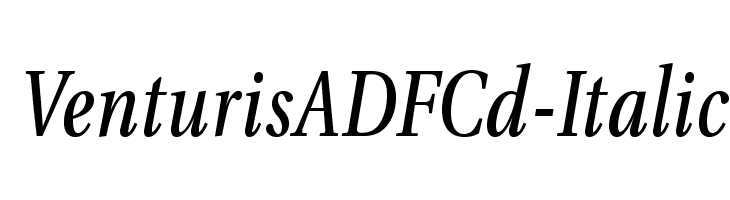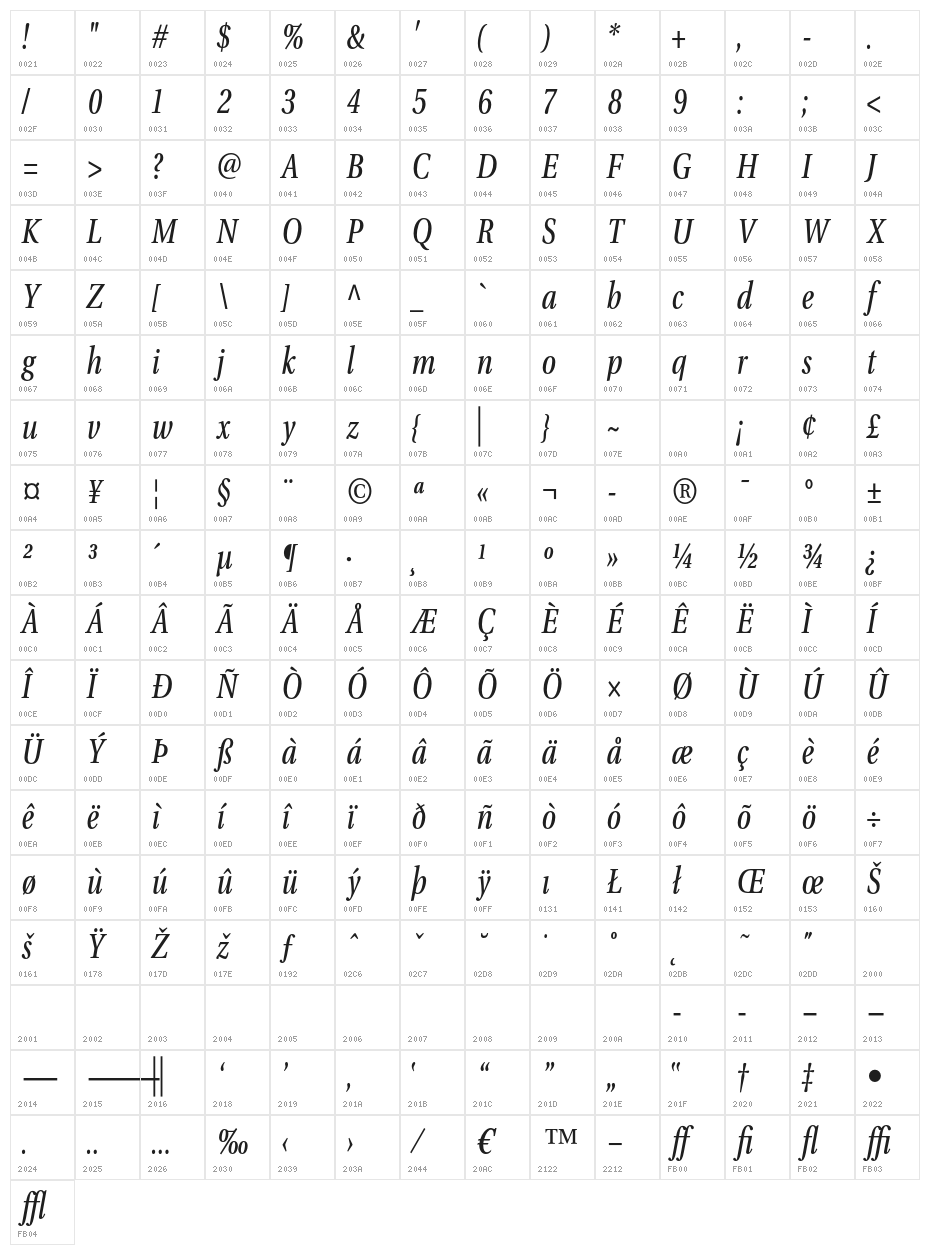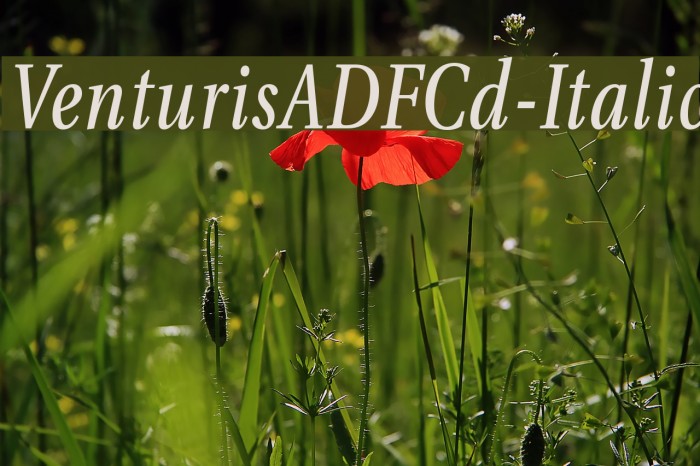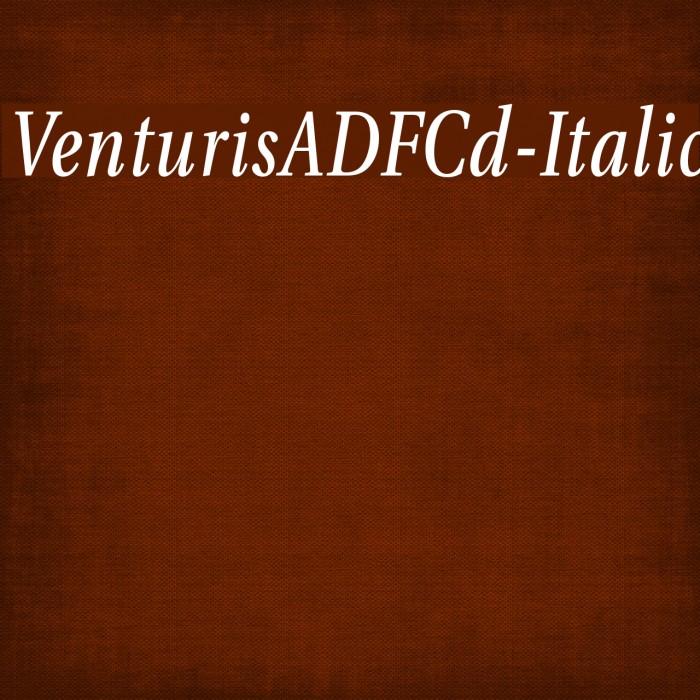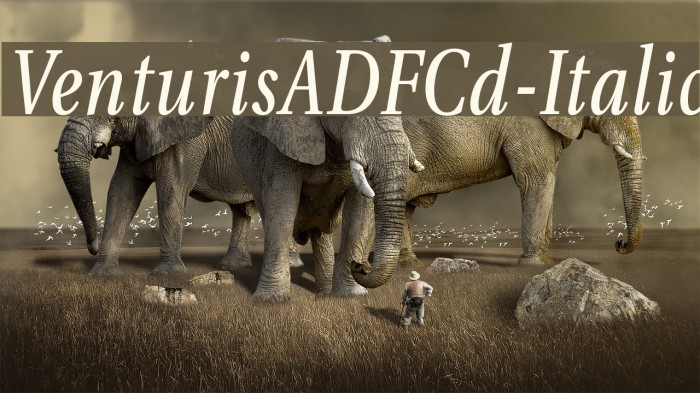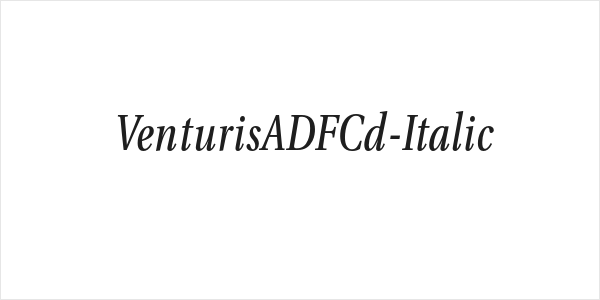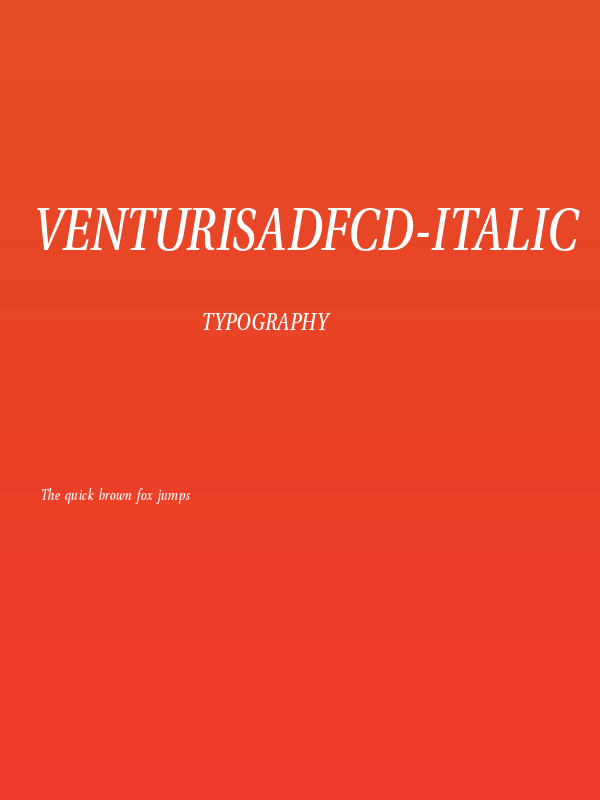
VenturisADFCd-Italic Font
VenturisADFCd-Italic Description
This elegant serif typeface features a classic italic style with smooth, flowing curves and a refined appearance. The letters are slightly slanted, giving a sense of motion and sophistication. The uppercase characters are tall and stately, while the lowercase letters maintain a consistent and harmonious flow. The numerals are clear and well-proportioned, ensuring readability. Special characters are designed with the same attention to detail, making them blend seamlessly with the rest of the typeface. The overall design is timeless, suitable for a variety of formal and professional applications.
| Proposed Projects | Ideal for use in formal invitations, editorial design, branding for luxury products, and elegant website headers. |